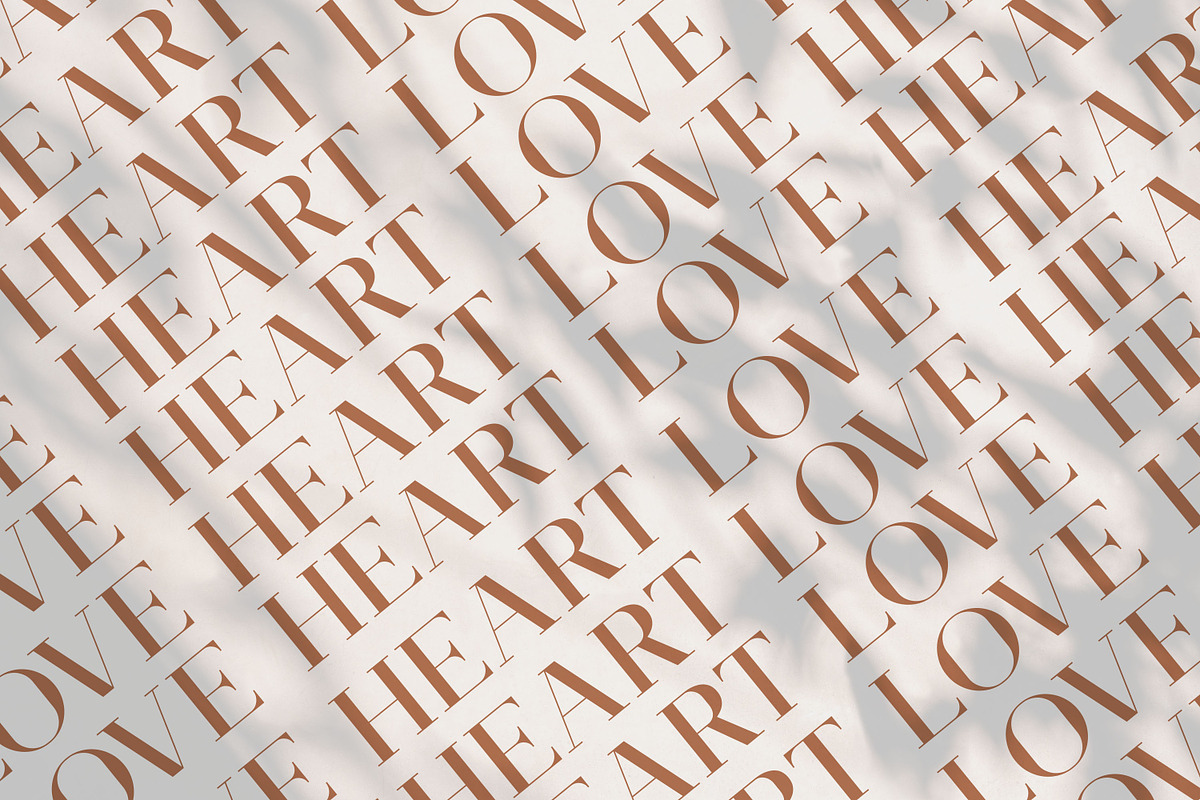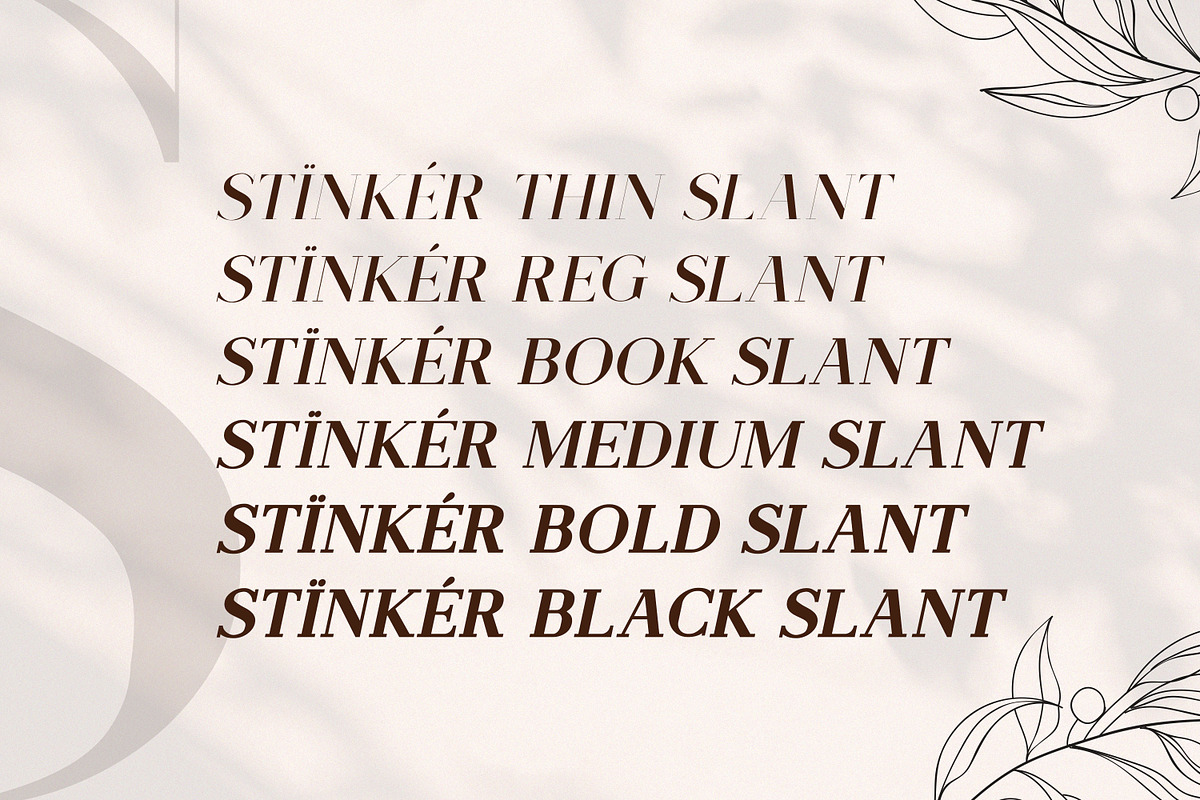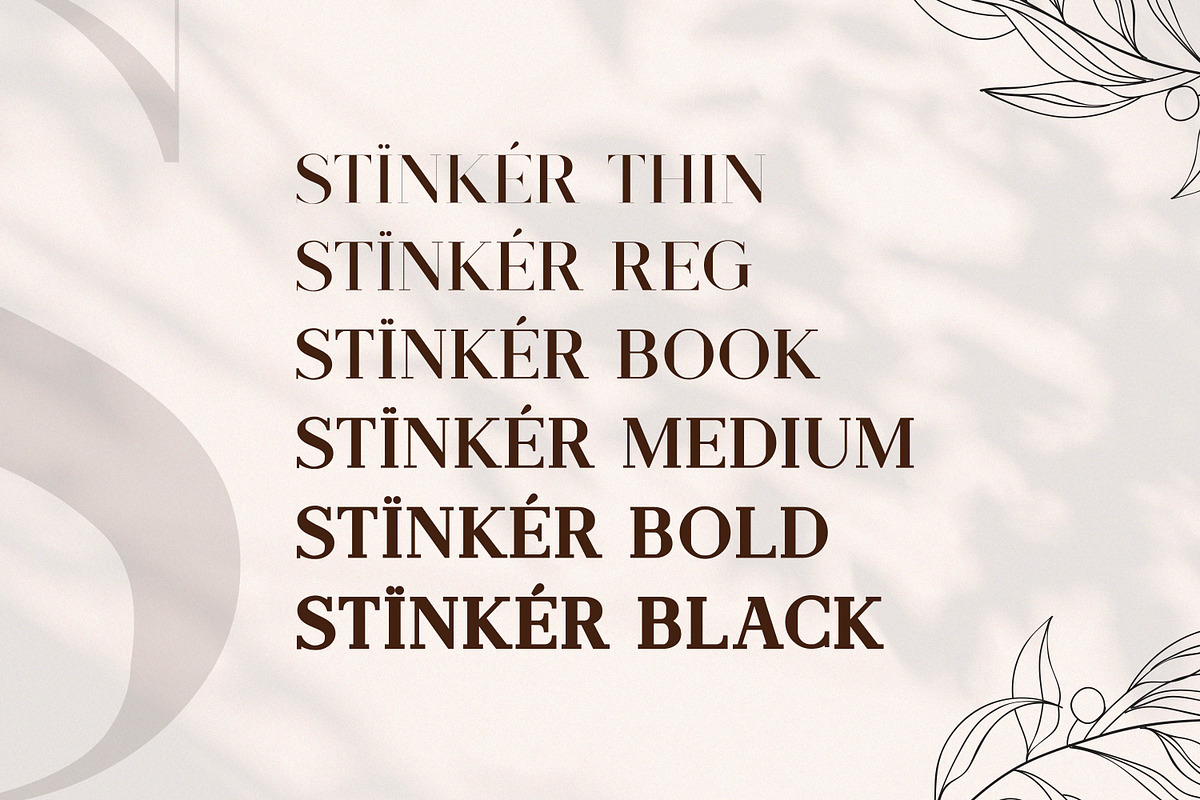
Stinker - Modern Serif Family
Stinker is a modern-style serif typeface that has been modernized with its unique curves and is beautiful for logos, mastheads, pull quotes & monograms showing both feminine and masculine qualities.